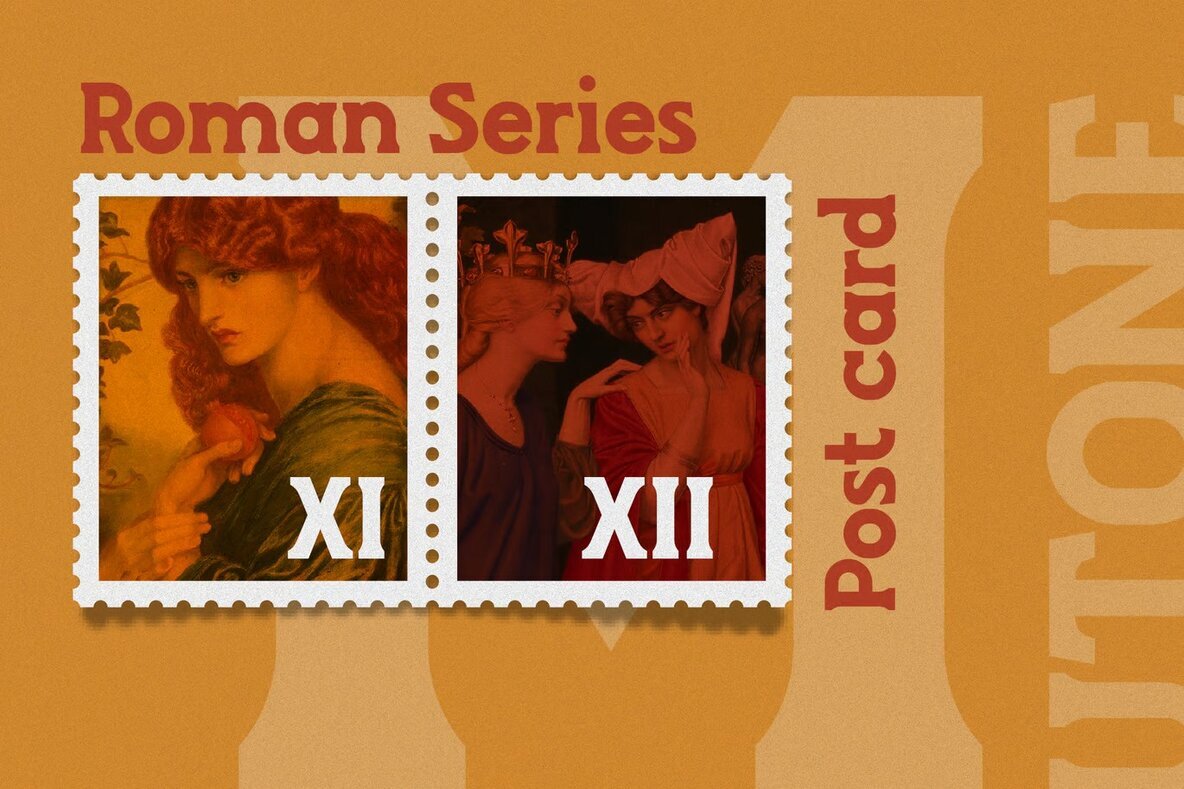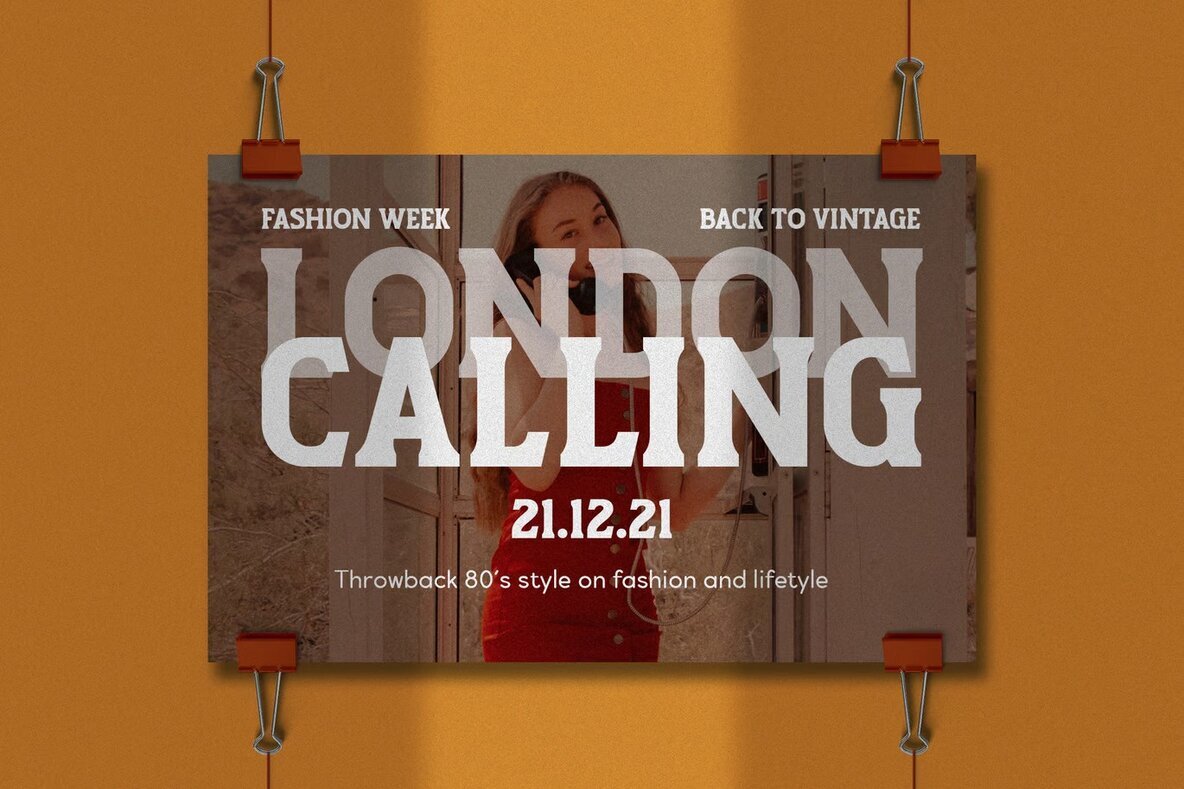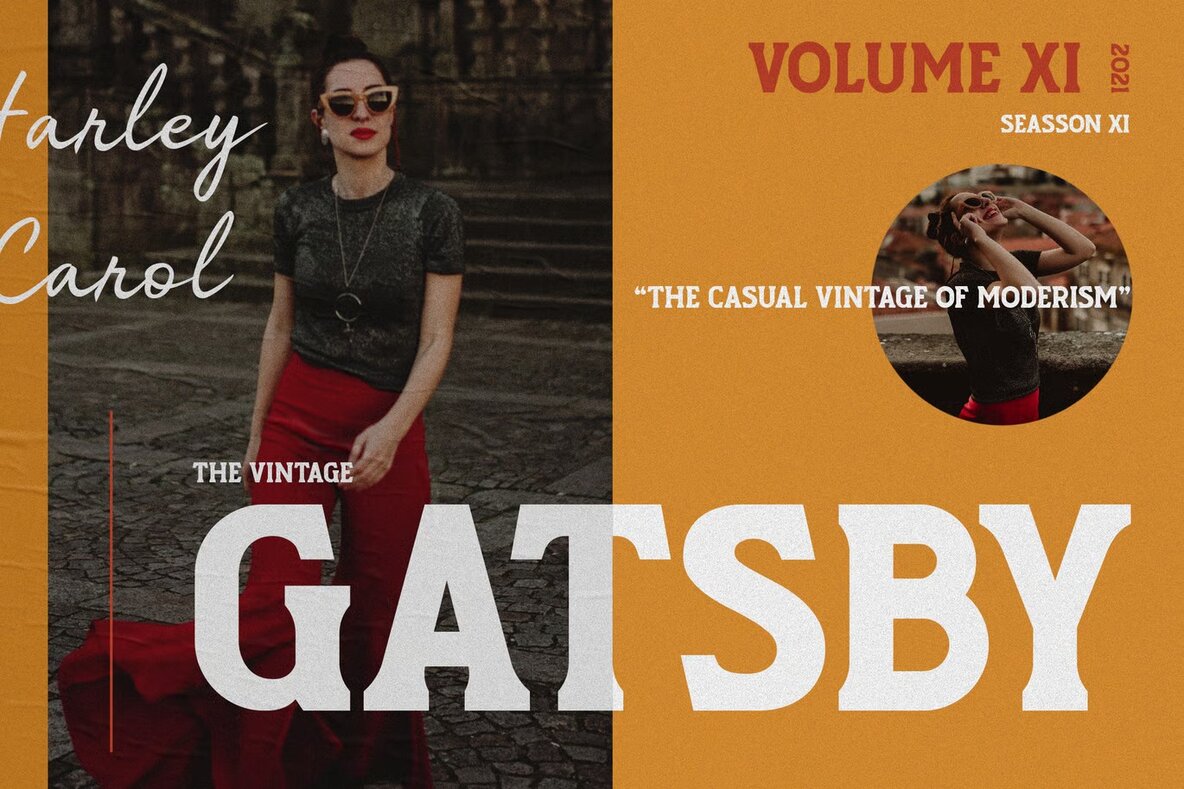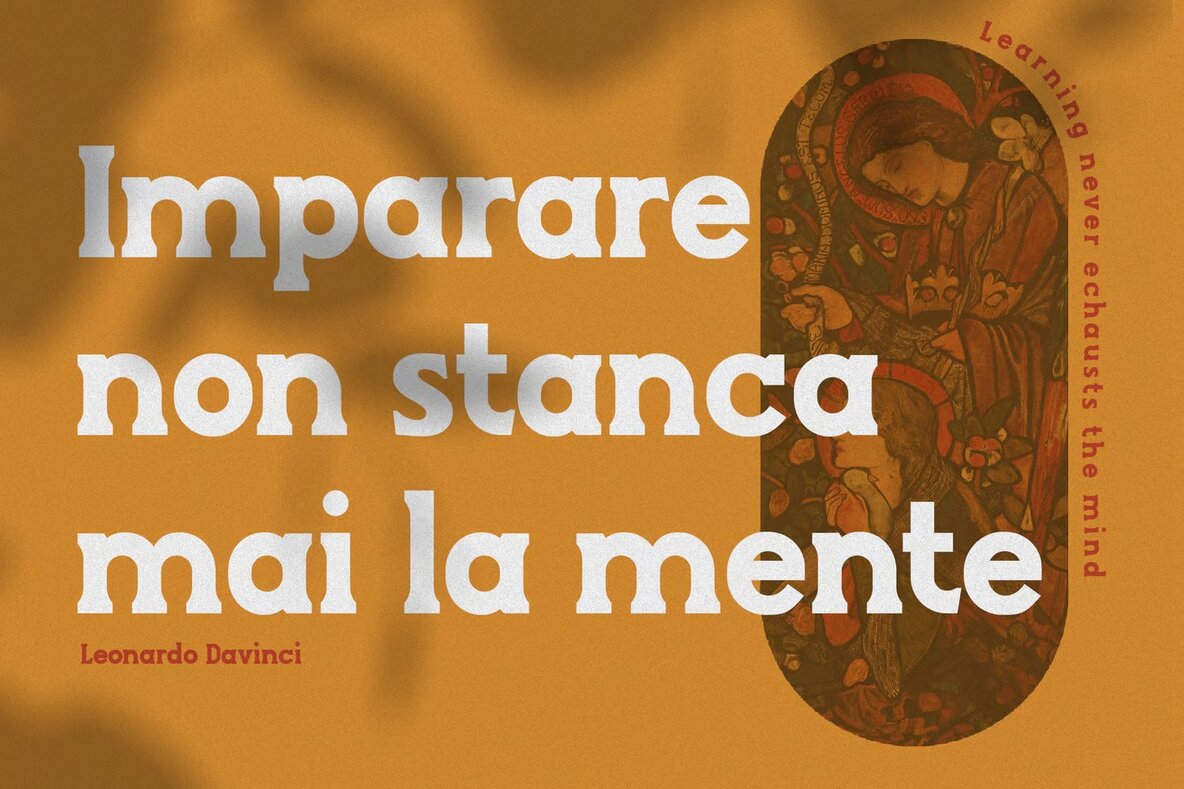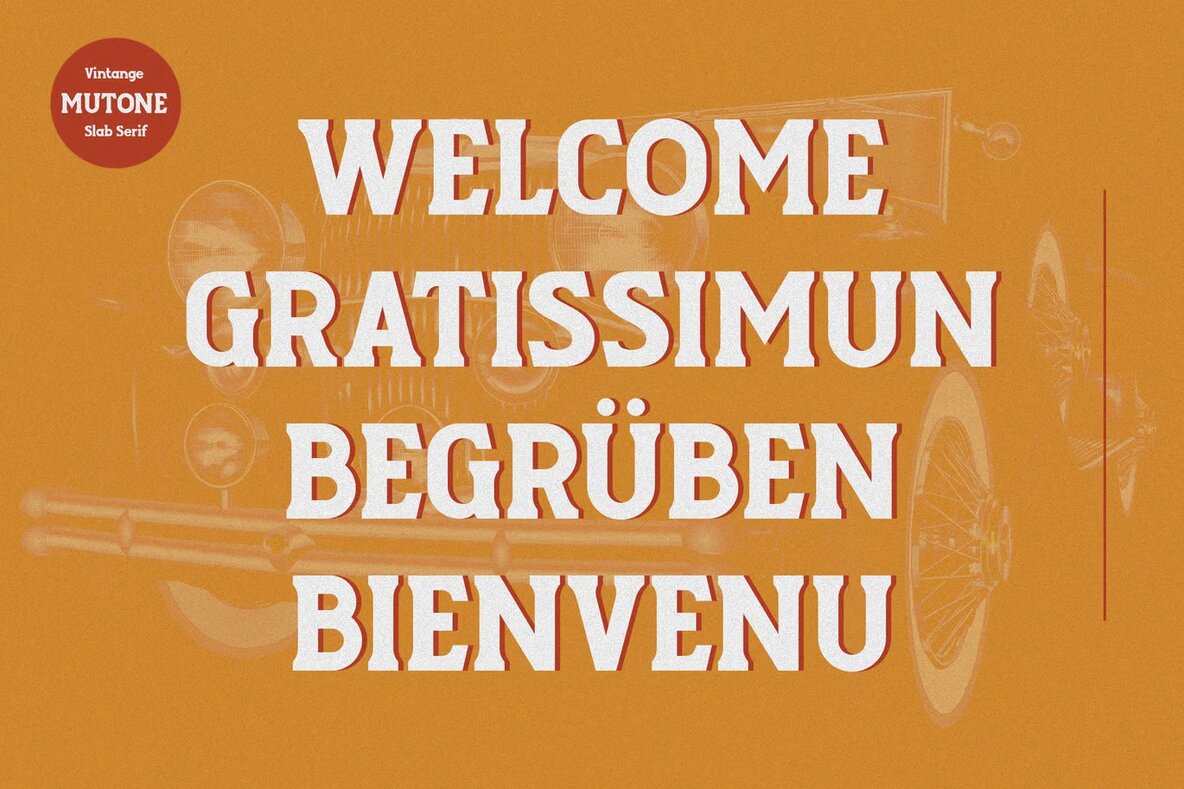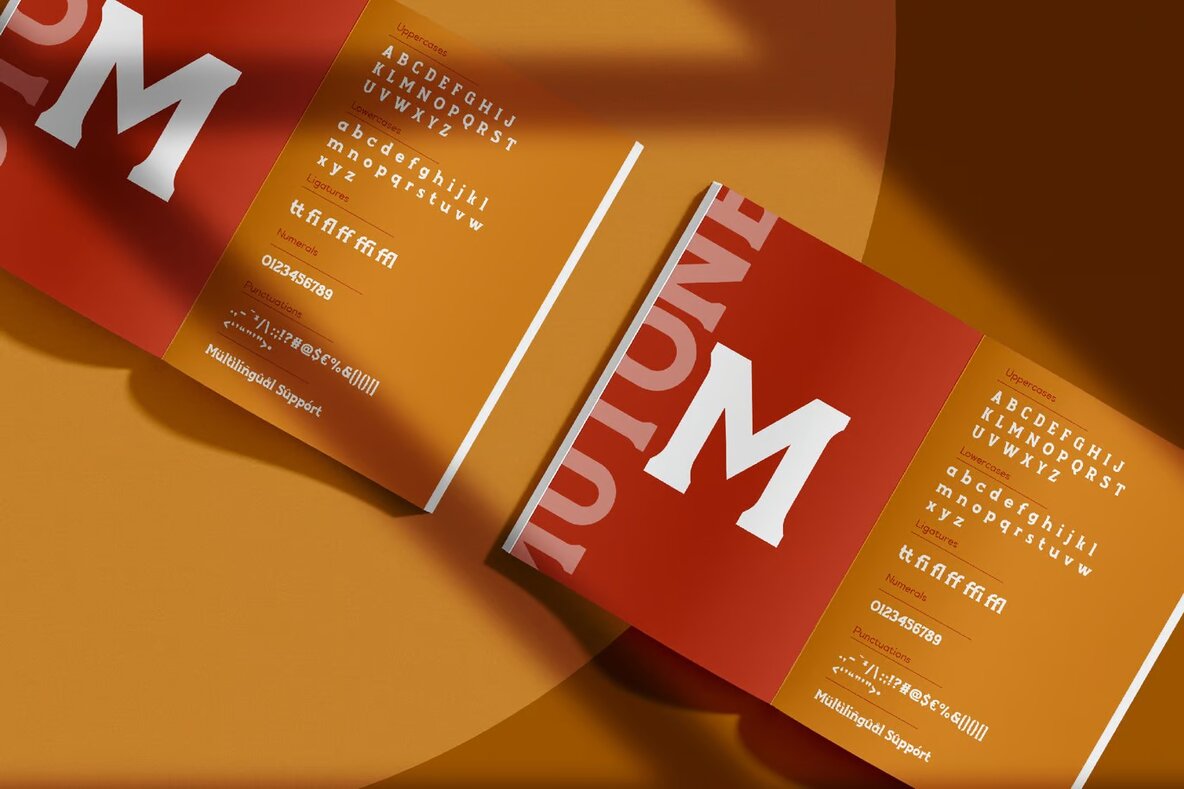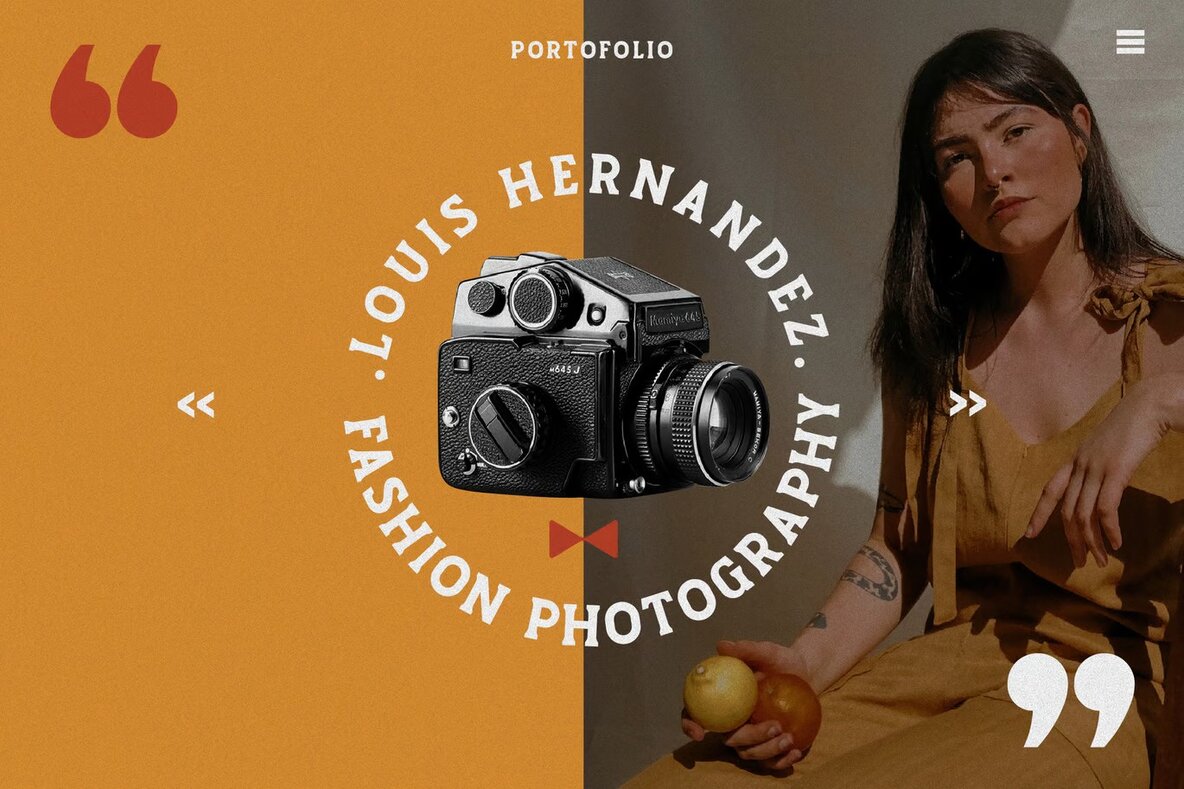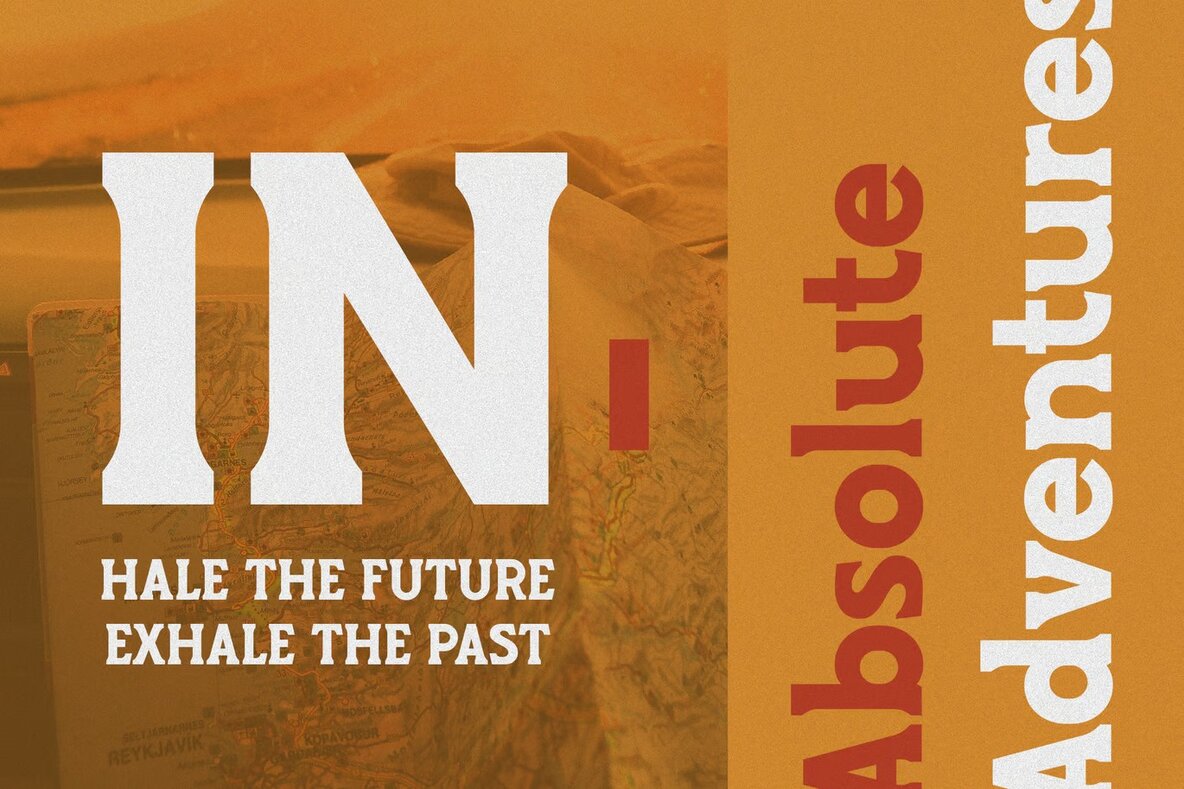
Mutone Font
Mutone is a retro classic vintage slab serif font, ideal for a wide range of design projects. Whether you're working on logo branding, editorial design, or modern advertising, Mutone adds a touch of classic elegance. Its robust and stylish form is perfect for adventure-themed projects, vintage industrial designs, or custom motorcycle and car aesthetics. Enhance your blog design, card invitations, and home decor with this timeless typeface.
Additionally, Mutone is well-suited for book covers, art quotes, and special events, creating a nostalgic yet current feel. Its versatility makes it an excellent choice for hand-lettered classic and vintage typography. Embrace the unique character of Mutone in your next design endeavor to create memorable and striking visual applications.